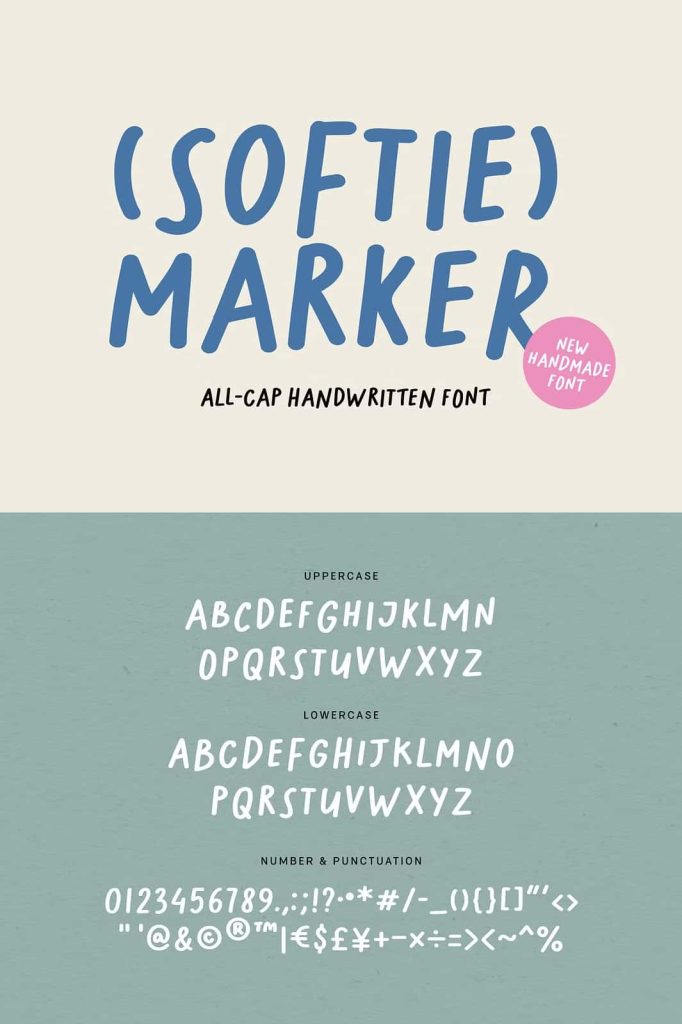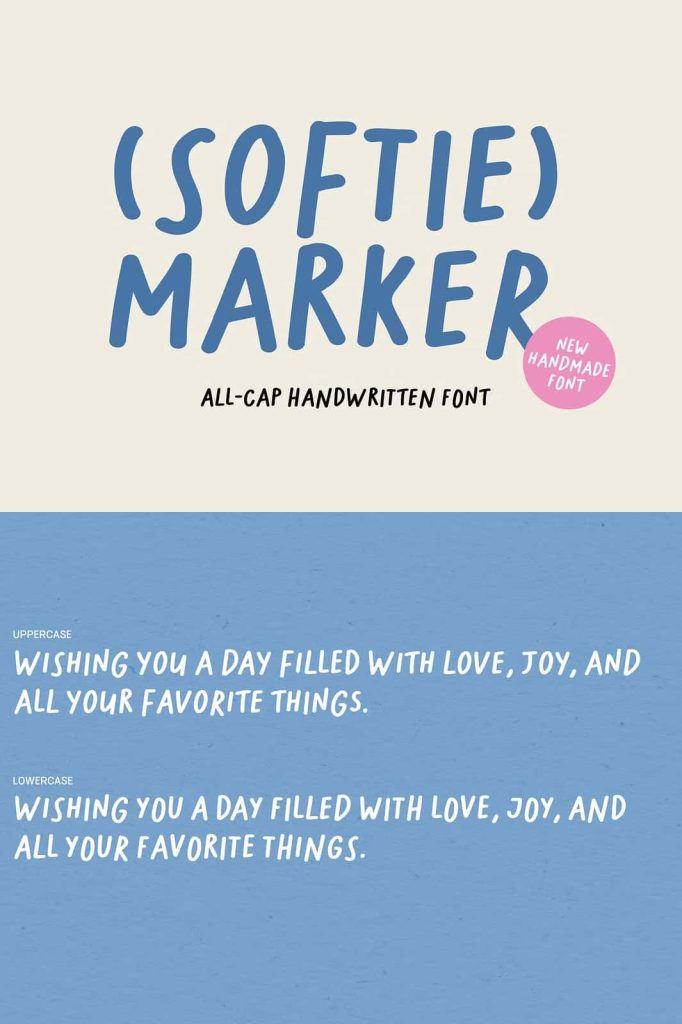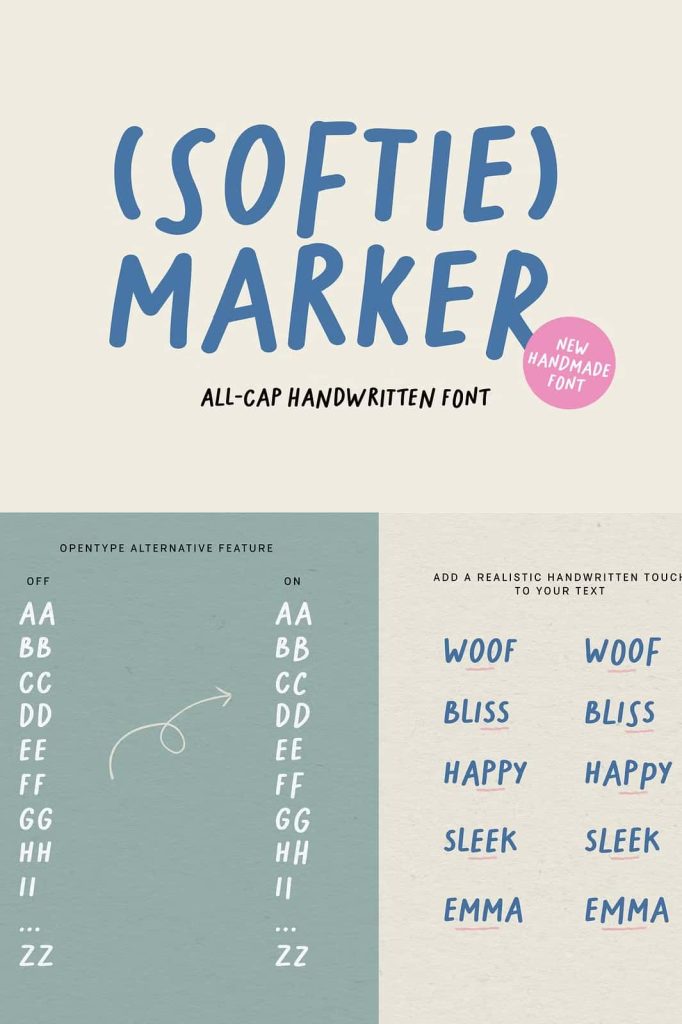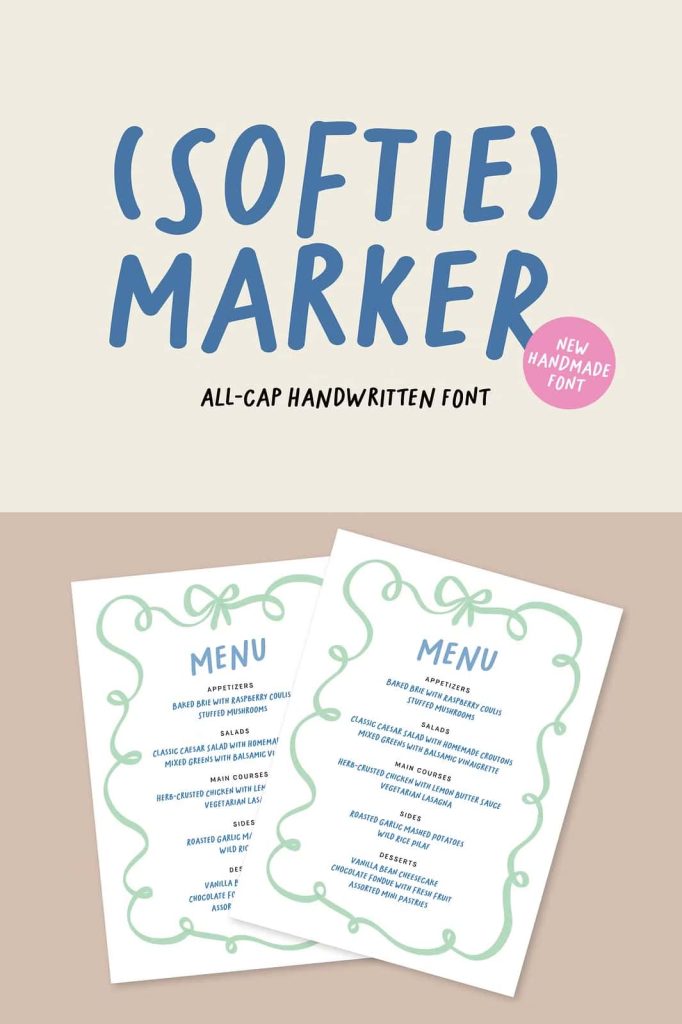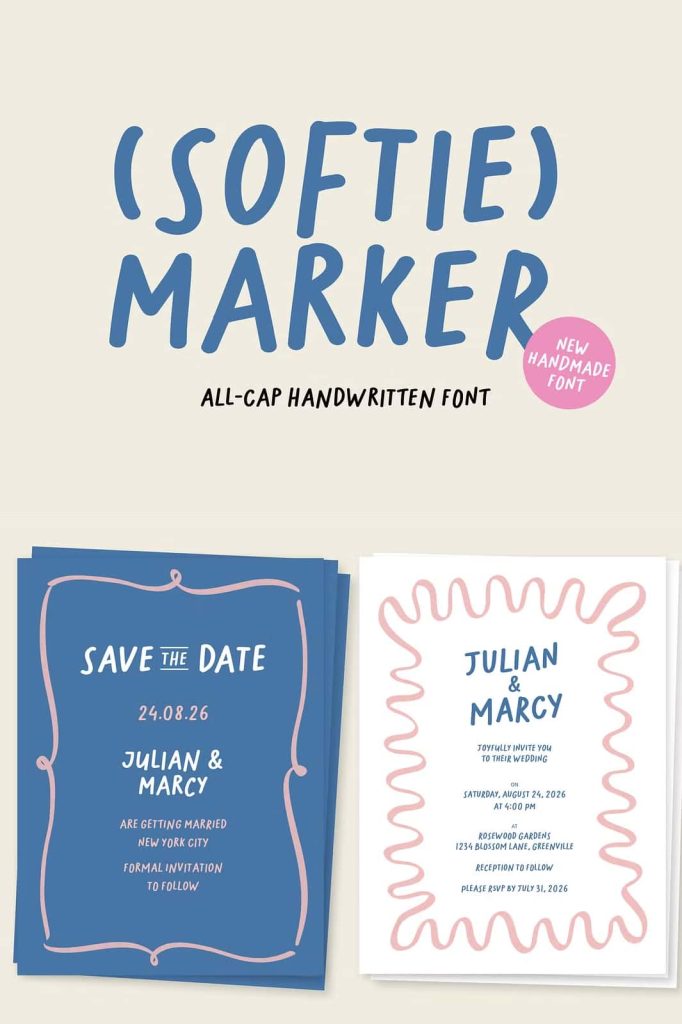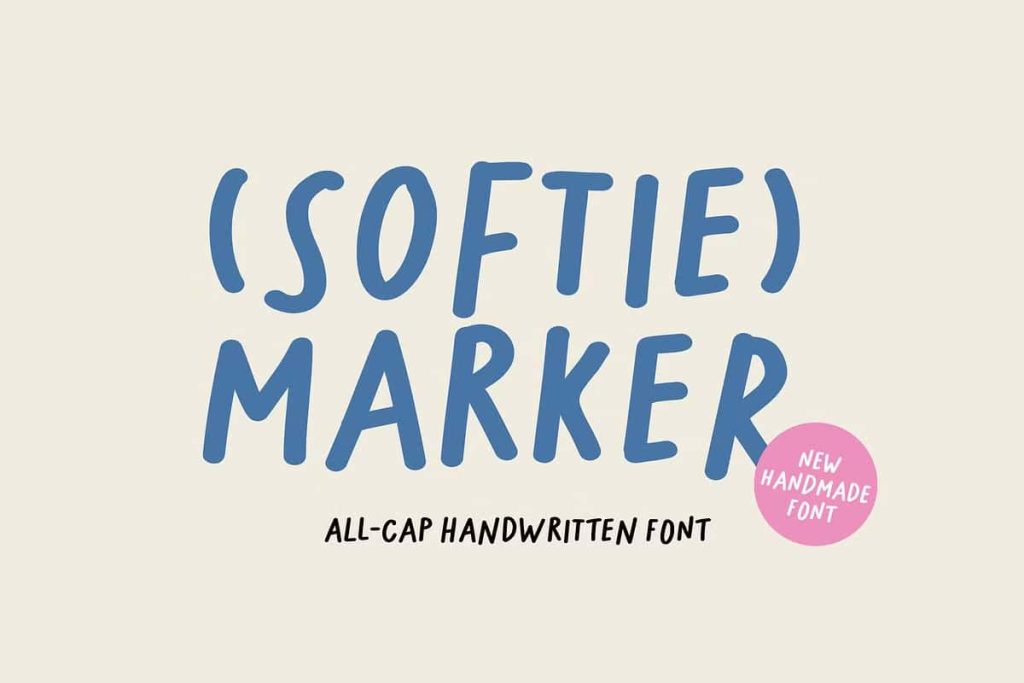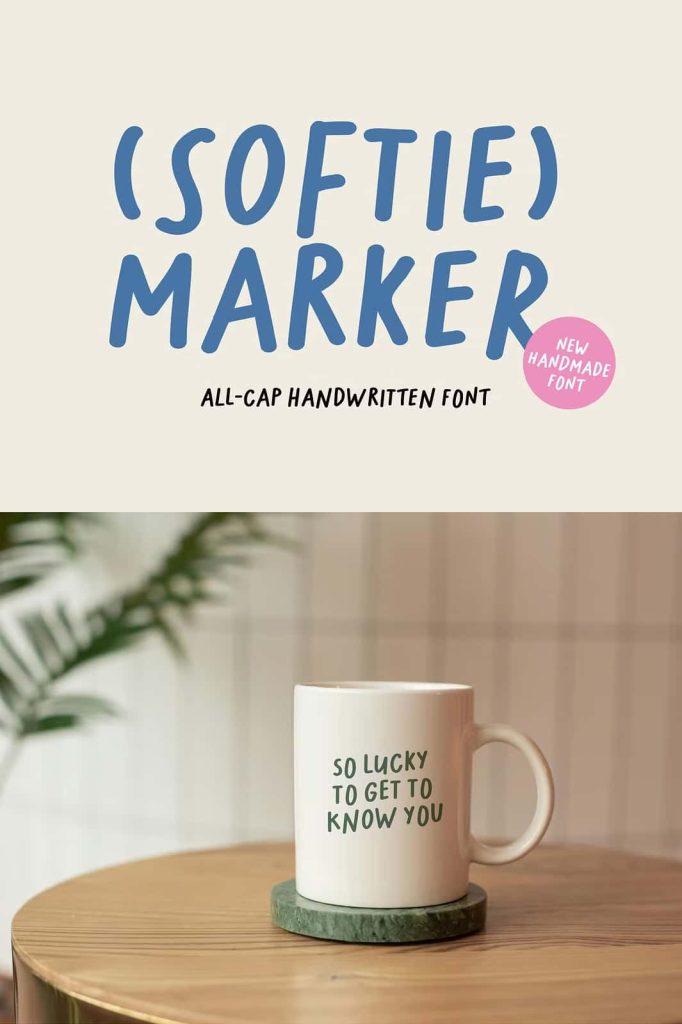
Softie Marker is a maker-style handwritten font. Perfect for adding a personal touch to your projects, from invitations and greeting cards to branding and social media graphics.